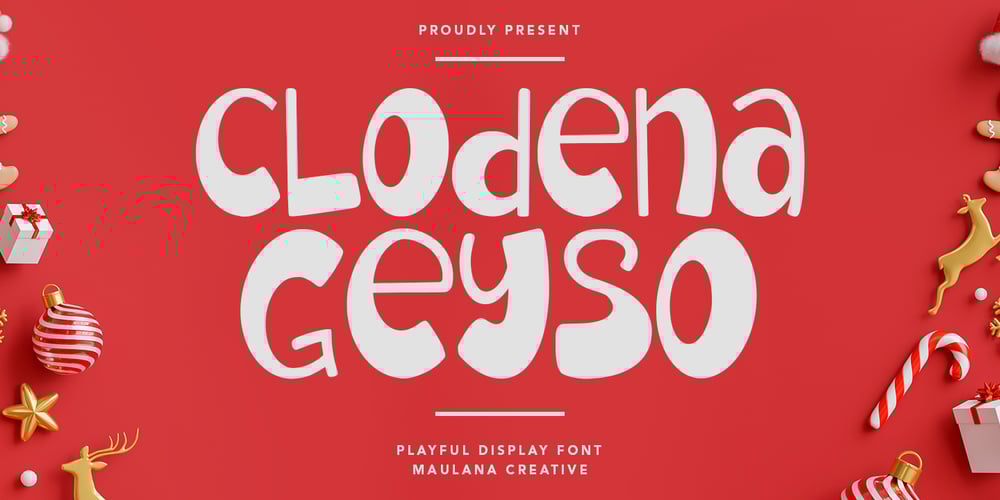
MC Clodena Geyso Font Family was designed by Gilang Maulana and published by Maulana Creative. MC Clodena Geyso contains 1 styles and family package options. Clodena Geyso playful display font. Bold stroke, fun character with a bit of ligatures and alternates. To give you an extra creative work. Clodena Geyso playful display font support multilingual more than 100+ language. This font is good for logo design, Social media, Movie Titles, Books Titles, a short text even a long text letter and good for your secondary text font with script or serif. Make a stunning work with Clodena Geyso playful display font.Cheers,Maulana Creative